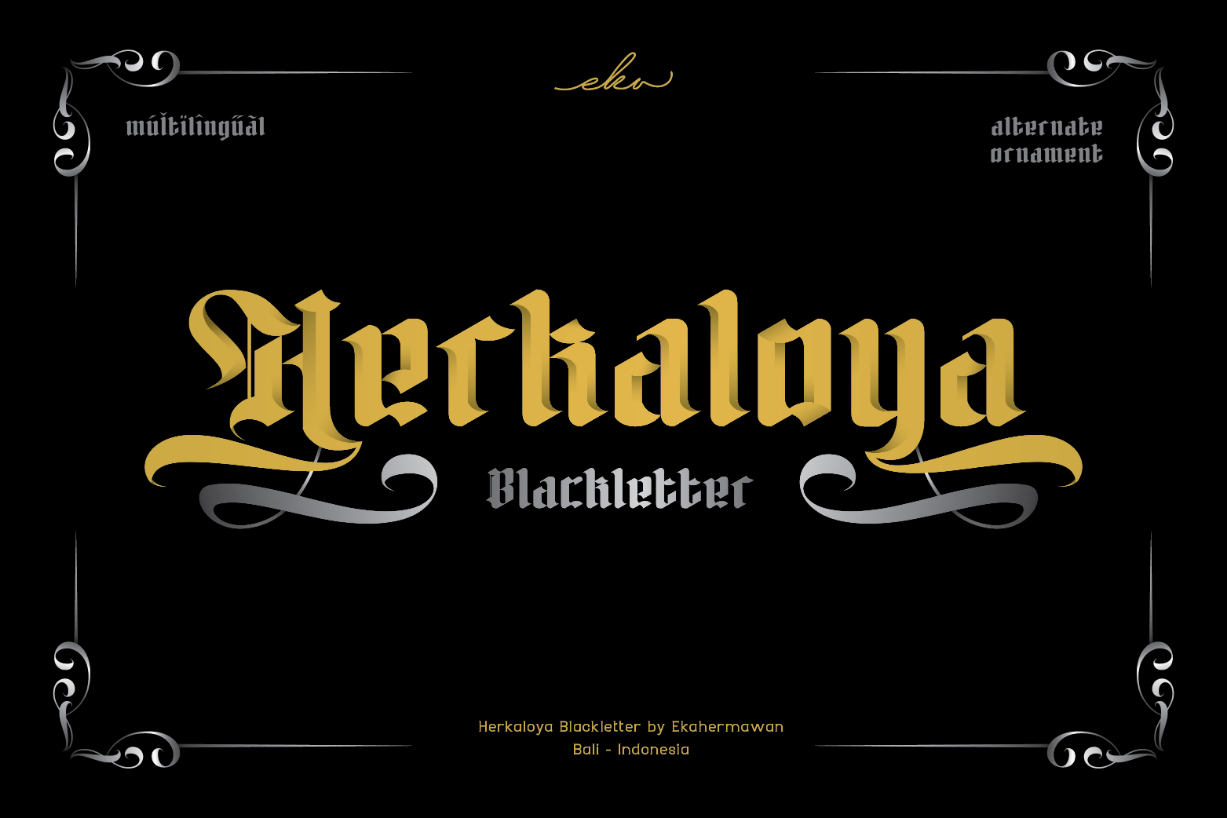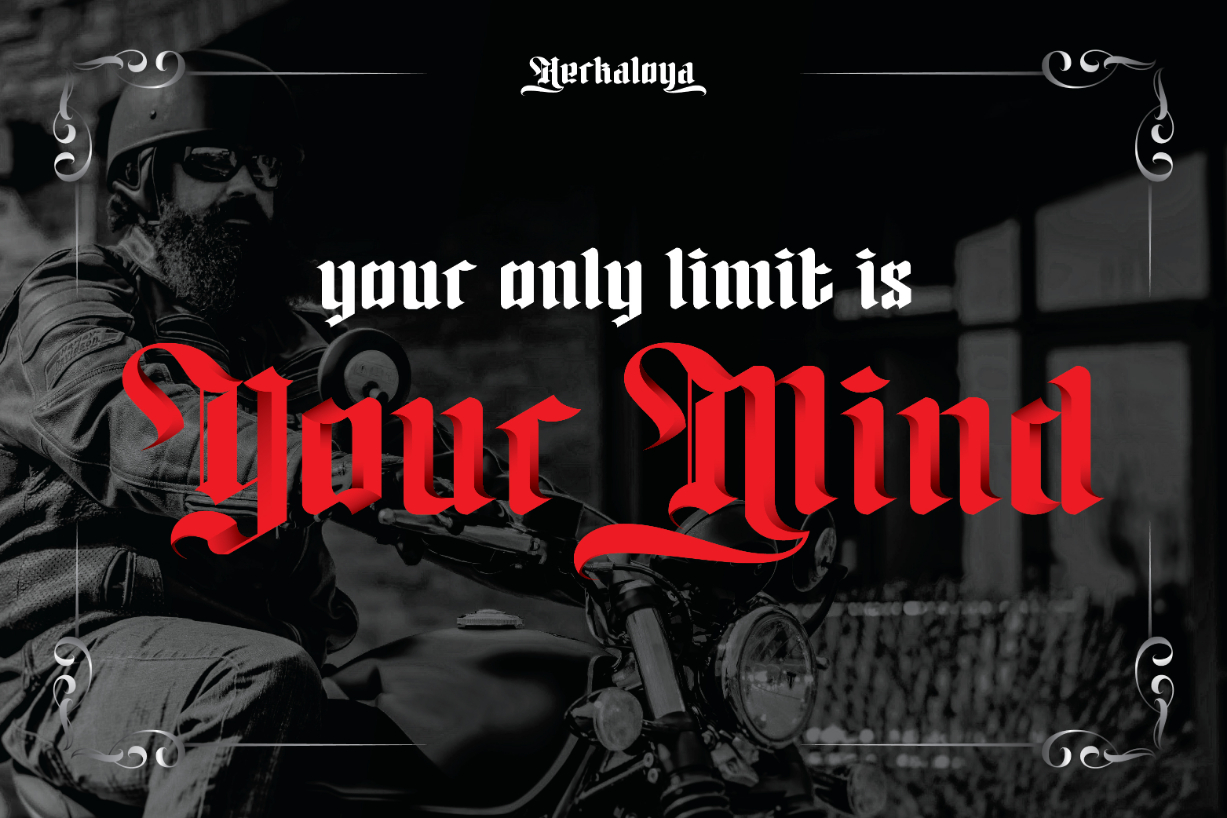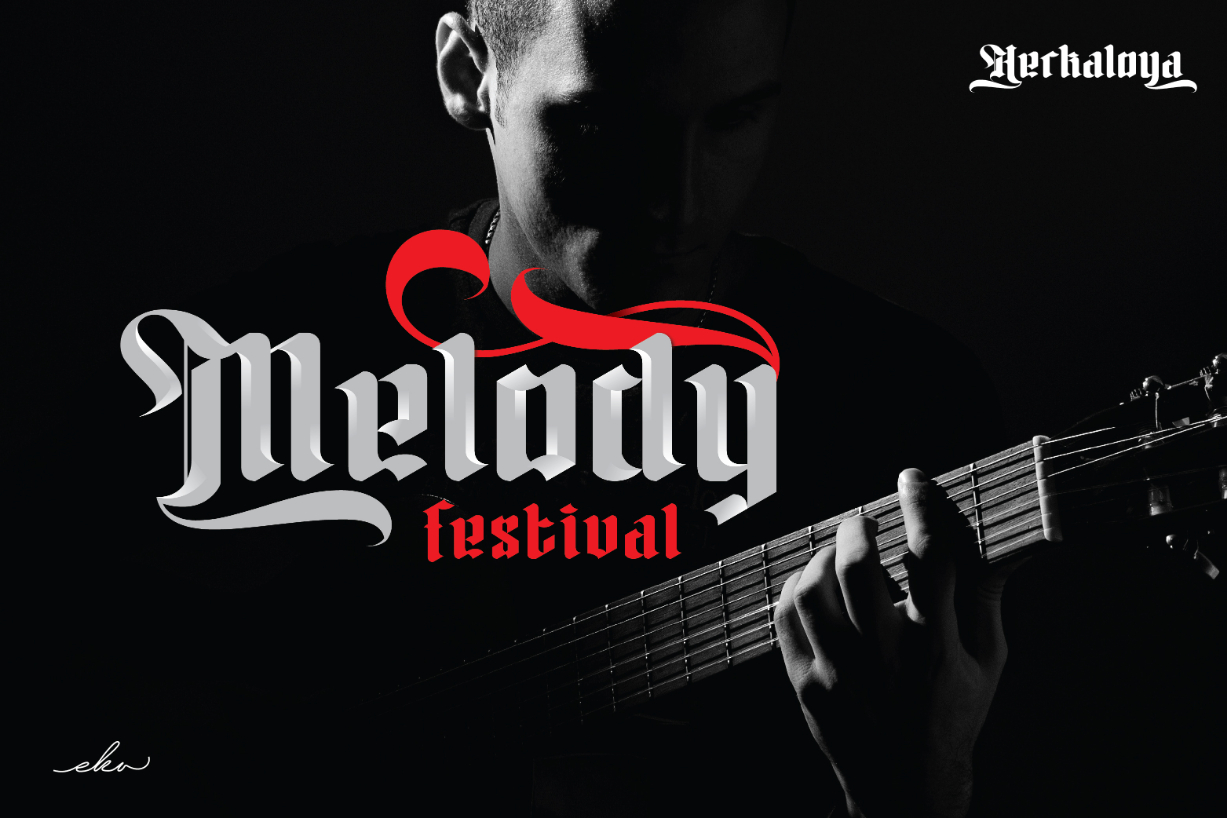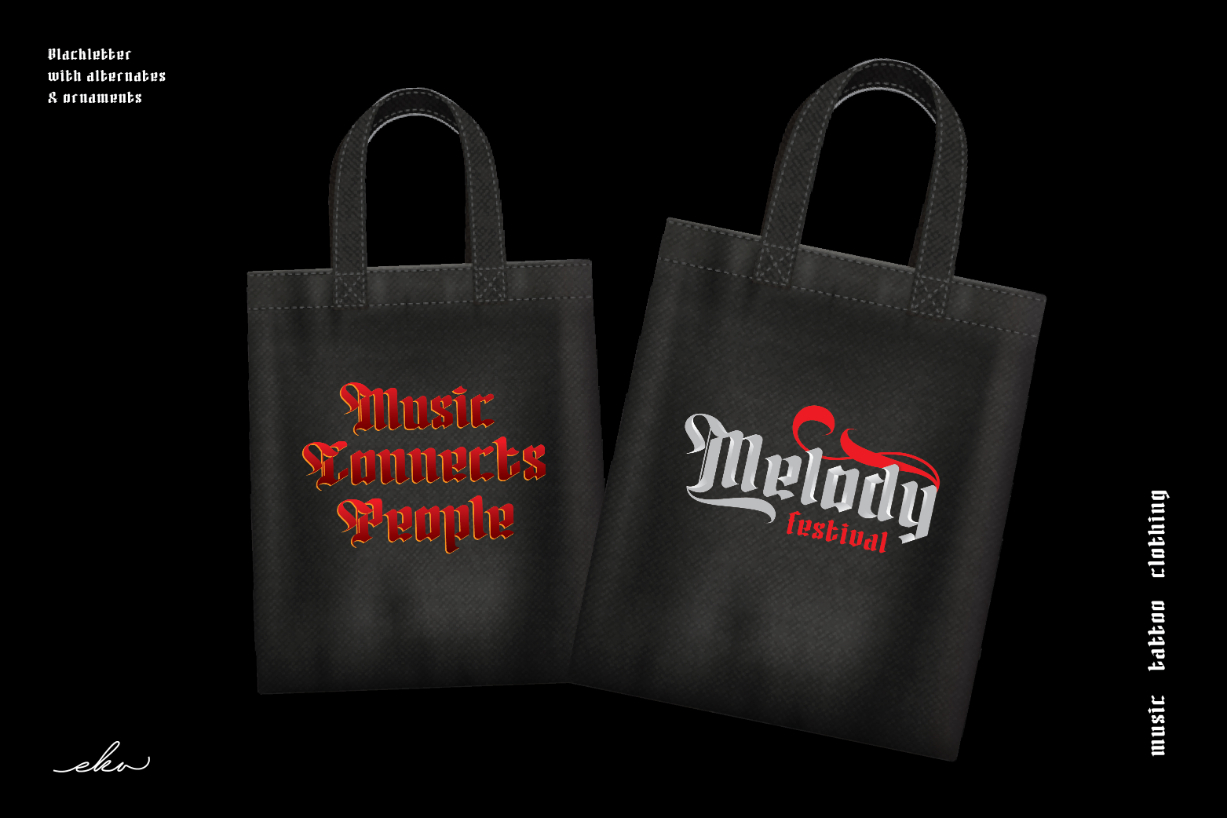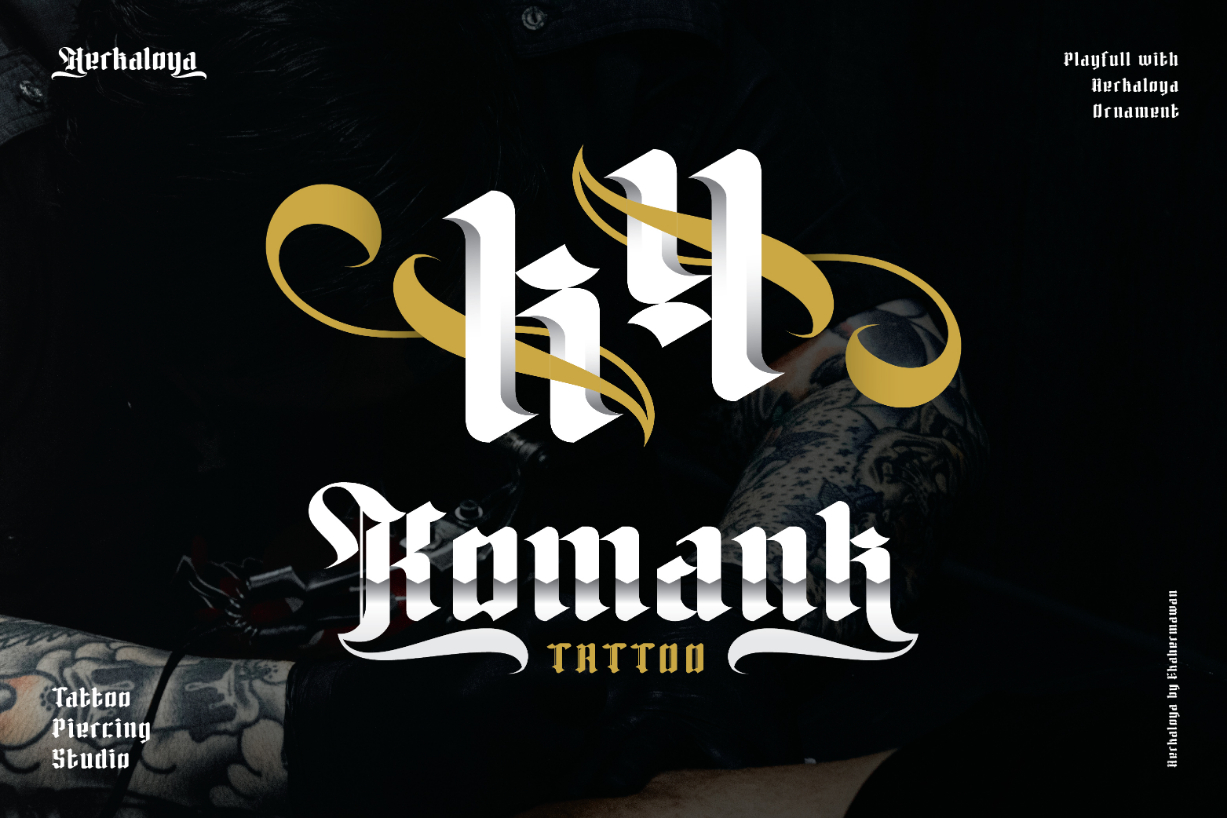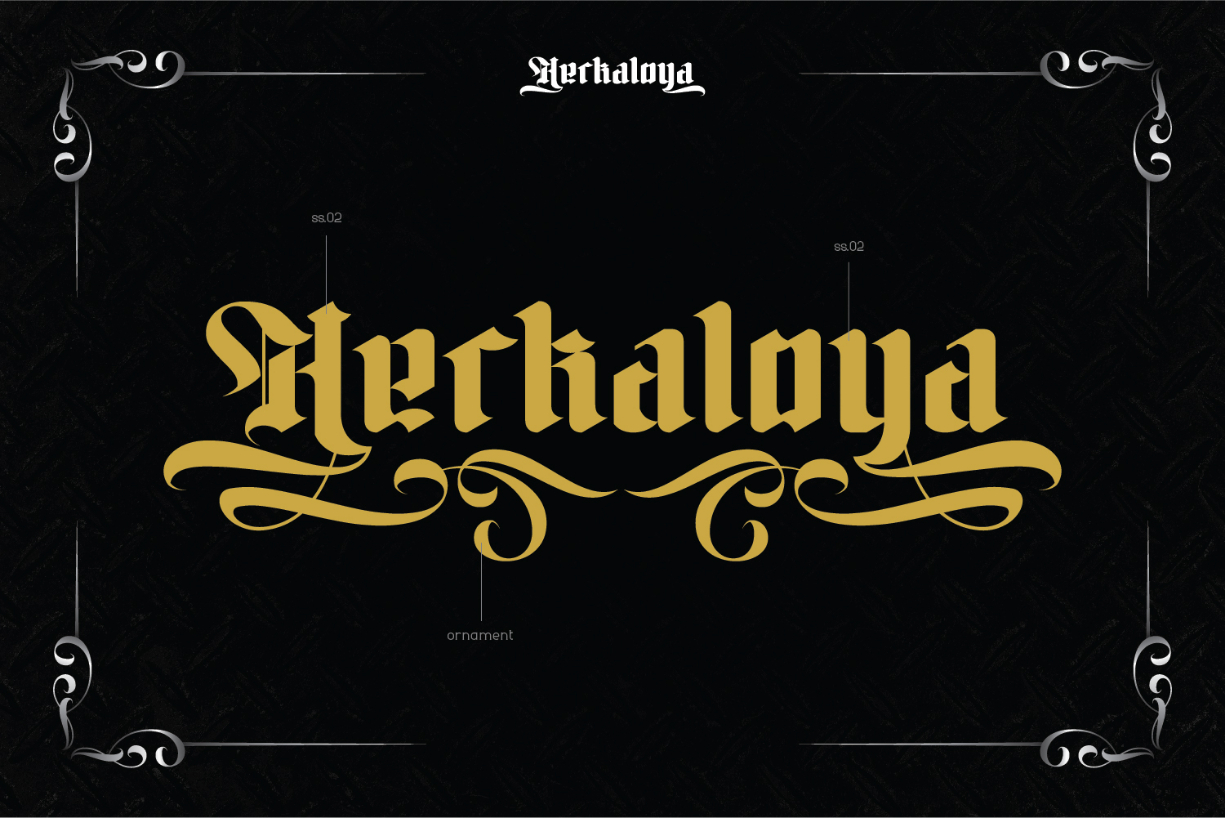
Herkaloya Font
About Herkaloya Font
Herkaloya is an assertive and thick blackletter font. Add this authentic font to each of your creative ideas and notice how it makes them stand out!